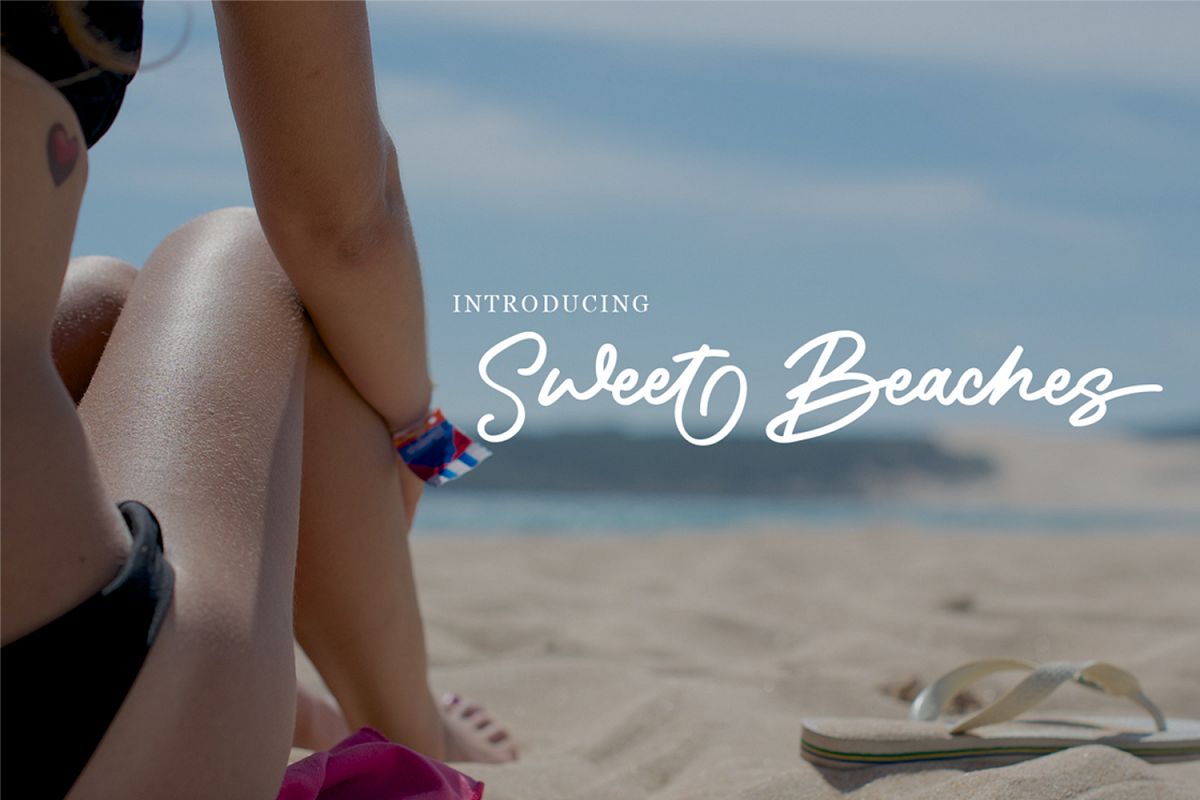
Sweet Beaches
The Sweet Beaches is an elegant script.
It’s perfect for luxurious designs but can also be used for logos,
invitations, quotes, cards, greeting cards, business cards, video title and many more.
• Sweet Beaches Uppercase
• Sweet Beaches Lowercase
• Sweet Beaches Numerals & Punctuation
• Sweet Beaches Stylistic Alternates
• Sweet Beaches Ligature
• Sweet Beaches Dictionary Ligatures
• Sweet Beaches Contextual Alternates
• Sweet Beaches Contextual Swash
• Sweet Beaches Terminal
• Sweet Beaches Swash